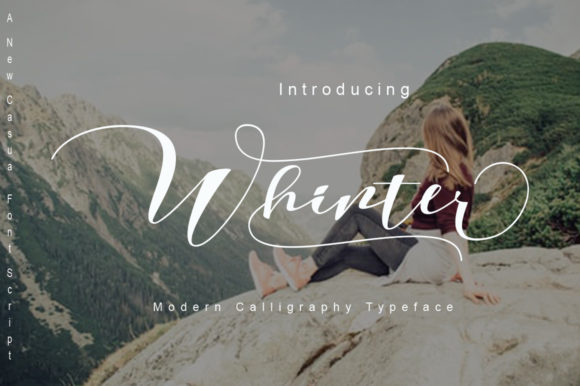
Feast your eyes on Whinter, an ethereal script that will transport you to a world of elegance and enchantment. Inspired by the graceful allure of a winter's waltz, this enchanting font dances across your screen, beckoning you to create designs that whisper of love and timeless beauty.
With its sweeping curves and enchanting swashes, Whinter is a true masterpiece, crafted to captivate and inspire. Its delicate strokes evoke a sense of intimacy, making it the perfect choice for heartfelt messages, romantic invitations, and branding that radiates warmth and sophistication.
Indulge in the allure of Whinter and watch as your designs blossom into works of art. Whether you're crafting a logo for a fitness studio where strength meets grace, or a wedding invitation that sets the tone for a magical celebration, Whinter will elevate your creations to new heights of elegance.
Unleash your creativity and let the captivating charm of Whinter guide you towards designs that resonate with your audience. Embrace the beauty of this enchanting script and witness the transformative power it holds.